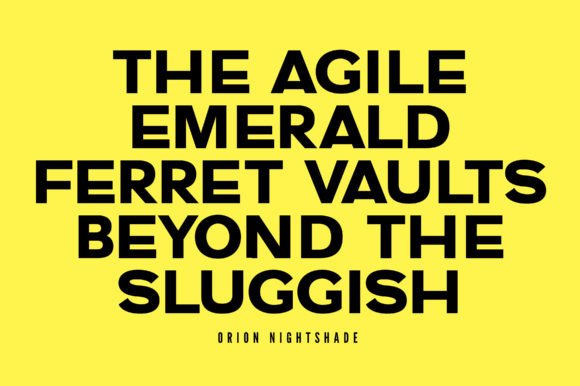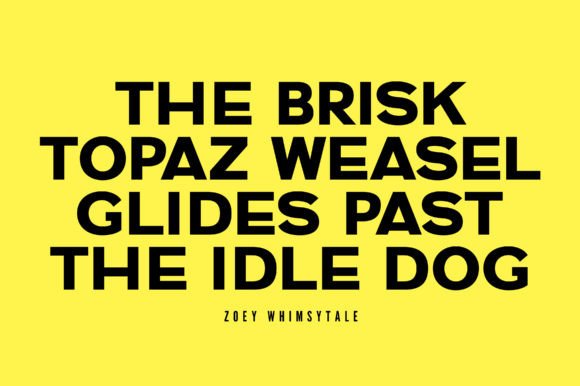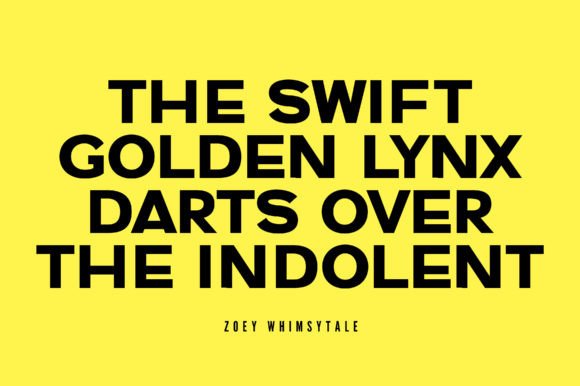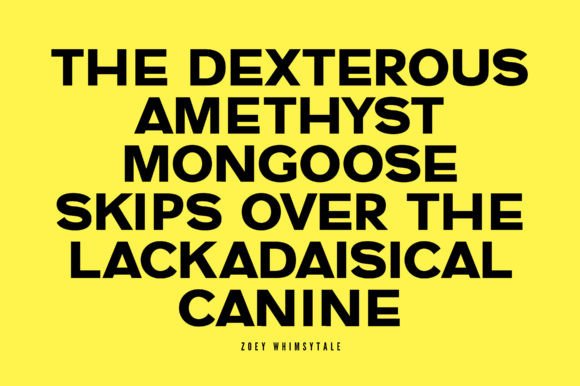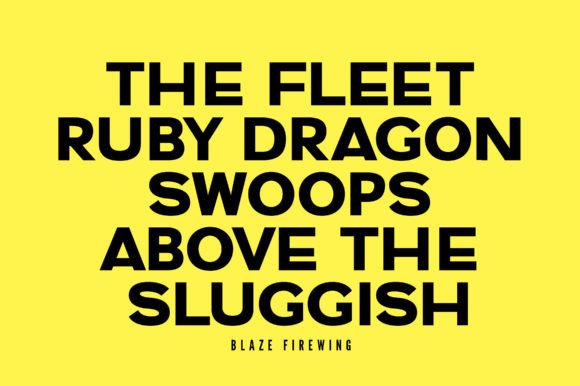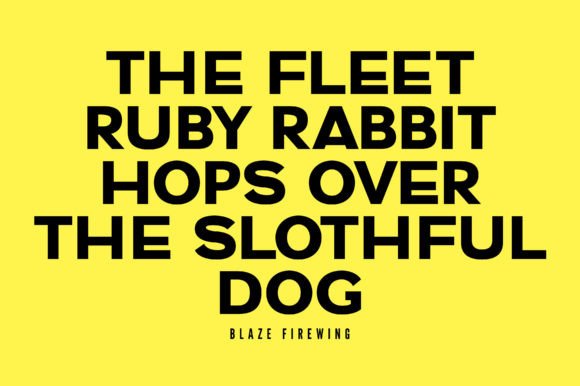
Introduction to Fuori Tutto Font Font Font
Fonts play a crucial role in design, and the Fuori Tutto Font Font font is a typeface that brings both character and versatility to any project. Whether you’re working on a branding project, a website, or a print design, the Fuori Tutto Font Font font offers a unique style that can elevate your work.
Introducing βFuori Tuttoβ β Redefining Modern Typography.
Elevate your designs with the sleek sophistication of βFuori Tutto,β a minimalist sans serif typeface that effortlessly embodies the essence of clean lines and geometric precision Crafted for the contemporary creator, this typeface stands as a testament to the art of simplicity, breathing life into your projects with its distinct modern flair.
Key Features of Fuori Tutto Font Font Font
Why Choose Fuori Tutto Font Font Font?
The Fuori Tutto Font Font font is more than just a typeface β it’s a design tool that helps you communicate your message with style and clarity. Its unique character set and versatile design make it suitable for a wide range of applications, from elegant invitations to bold headlines.
With its carefully crafted letterforms and balanced proportions, the Fuori Tutto Font Font font ensures readability and visual appeal across all mediums.
What makes Fuori Tutto Font Font font special?
The Fuori Tutto Font Font font stands out with its unique design, exceptional readability, and versatility across various design applications.